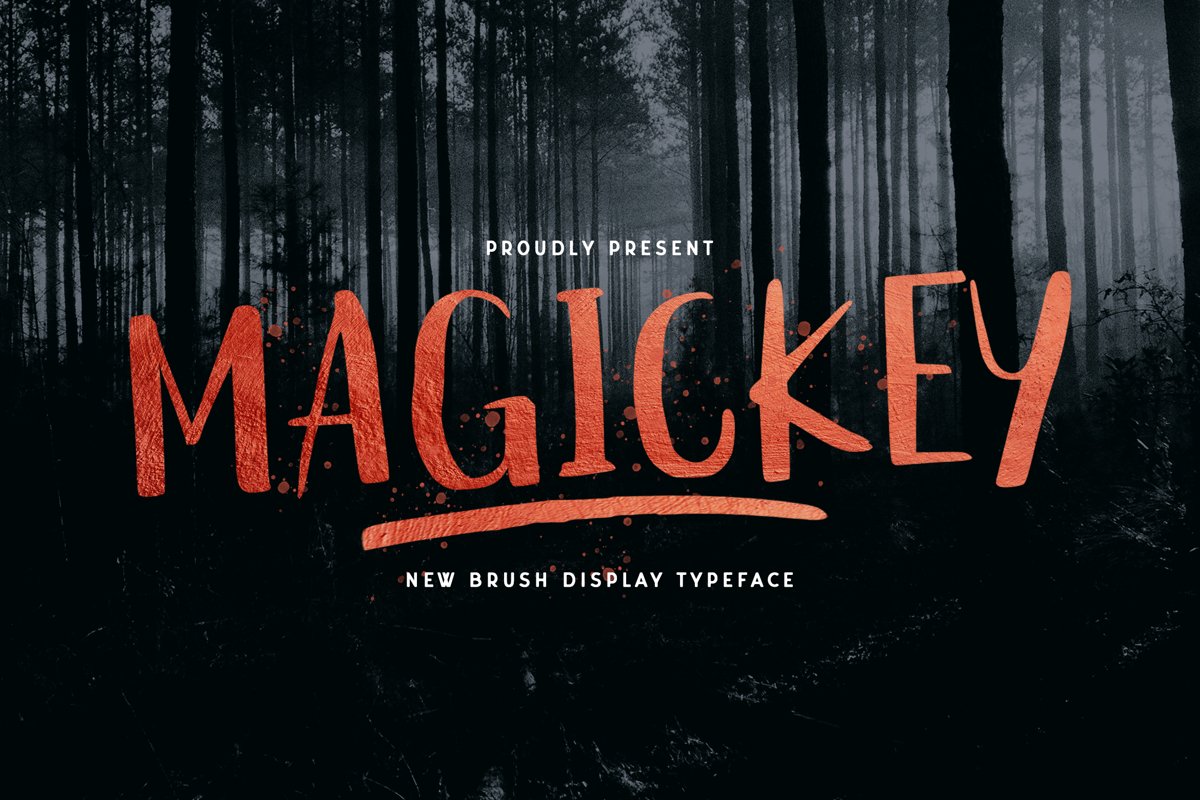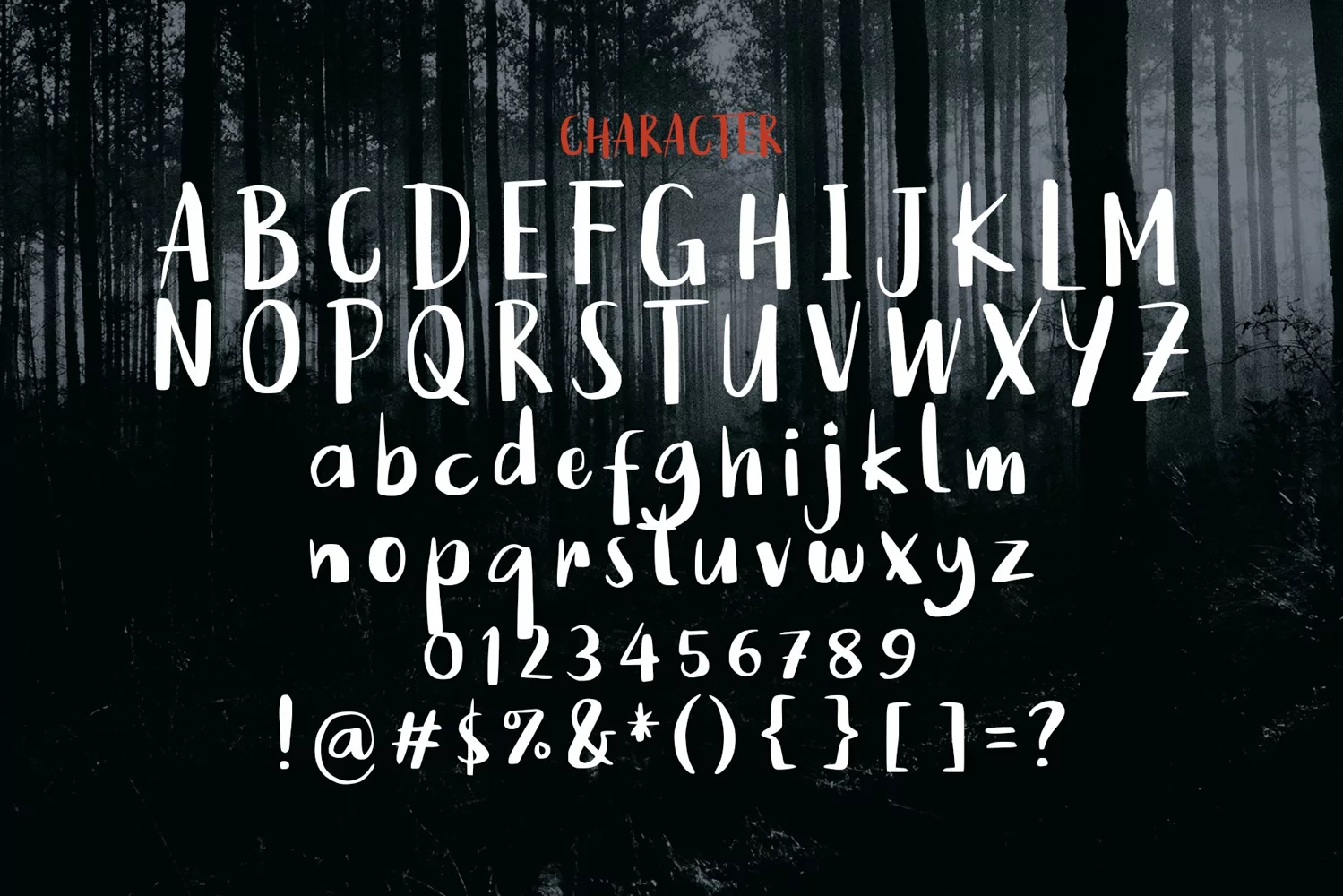
Magickey is a display typeface. Perfect for display, poster, quotes, crafting needs, florist needs, wedding needs, business card, print, bottle, t-shirt, packaging, merchandise, branding, logo, logotype, header, tittle, and many more.